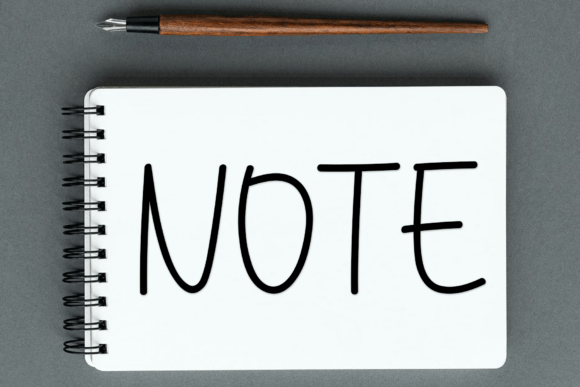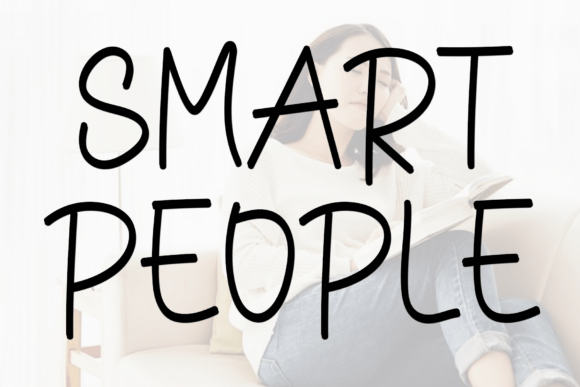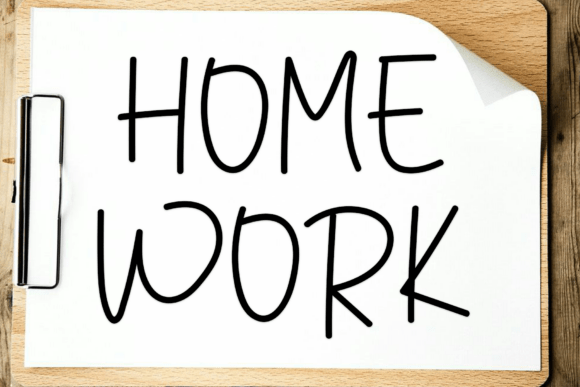
Introduction to Jamaica Font
As you sit in front of your computer, staring at a blank canvas, you’re hit with a burst of creativity. You want your design to stand out, to make a statement, to be remembered. And that’s where the right font comes in – a crucial element that can elevate your work from ordinary to extraordinary. Among the countless options available, one font has caught the attention of designers and artists alike: the Jamaica Font.
This beautiful and eye-catching font boasts a soft, unique touch that sets it apart from the rest. Its distinctive strokes give it a special character, making it meaningful and versatile for future use. Whether you’re working on a design project, crafting a handmade card, or creating a digital graphic, the Jamaica Font is an ideal choice.
Key Features of Jamaica Font
- Features a unique, exotic design style reminiscent of Caribbean culture.
- Perfect for designers looking for a distinctive and eye-catching font to elevate their creative project.
Honest Review: Jamaica Font
As a designer, I’m always on the lookout for new and exciting design resources to add to my arsenal. Recently, I came across the Jamaica Font, and I must say, it’s a real gem. ✨ The font’s high-quality design and versatility make it perfect for a wide range of creative projects, from branding to digital art.
The Jamaica Font is available for free download, which is a major plus in my book. The transparent background option is also a great feature, allowing for seamless integration into any design. ✨ The font’s clean and modern aesthetic makes it easy to use in both print and digital formats.
- What works well: High-quality design, versatile, available for free download, transparent background option.
- Limitations: ⚠️ Limited font styles (only a few variations), may not be suitable for very formal or traditional designs.
Overall, I’m really impressed with the Jamaica Font. It’s a great addition to any design resource collection and is sure to add a touch of creativity to any project. While it may not be perfect for every design scenario, it’s definitely worth checking out.
Jamaica Font
The Jamaica Font is a unique and versatile design resource ideal for creative projects. With a high-quality and transparent background, this font can be used to add a touch of elegance to any design.
Using Jamaica Font in Popular Design Platforms
Tips for Getting the Most Out of Jamaica Font
Experiment with different font sizes, colors, and combinations to create unique and eye-catching designs. Use the transparent background to create stunning graphics and illustrations.
The Jamaica Font is ideal for creative projects such as:
- Graphic design and visual identity
- Typography and font pairing
- Illustrations and graphics
Alternatives to Jamaica Font
1. Great Vibes
Great Vibes is a beautiful, elegant script font perfect for creating a high-quality design resource. It features a transparent background and can be easily used for a variety of creative projects, from wedding invitations to branding materials. When to use: formal events, luxury products, or any project requiring a touch of sophistication. How it compares: Great Vibes has a more refined and polished look compared to Jamaica Font, making it ideal for high-end designs.
2. Alex Brush
Alex Brush is a handwritten font with a natural, organic feel. It’s perfect for adding a personal touch to your design and can be used for a wide range of creative projects, from blog posts to product packaging. When to use: personal blogs, handmade products, or any project requiring a warm and inviting tone. How it compares: Alex Brush has a more relaxed and casual feel compared to Jamaica Font, making it ideal for projects that require a friendly and approachable tone.